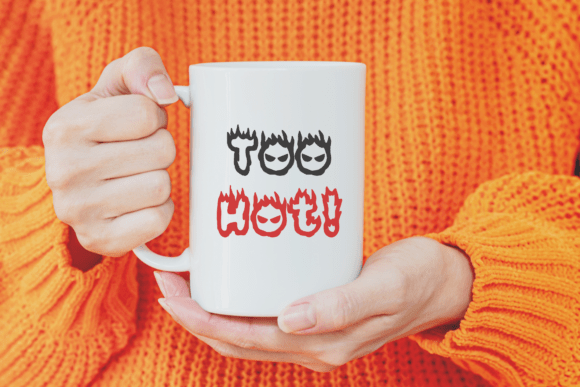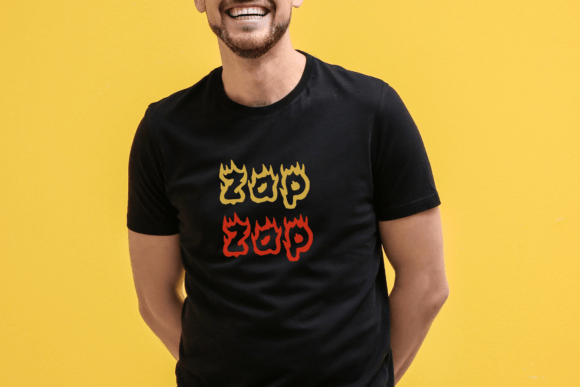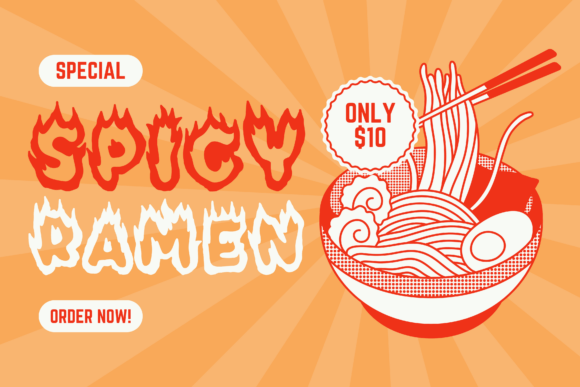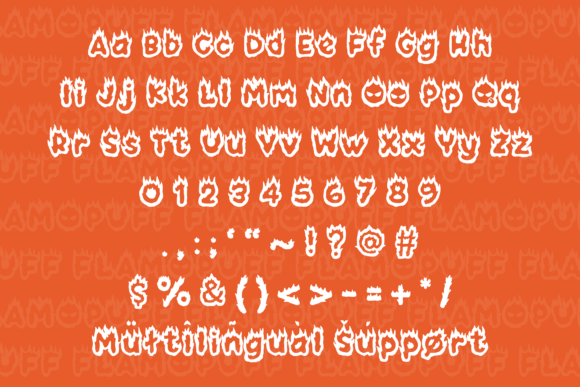
Introducing FlamoPuff Font: The Ultimate Choice for Bold and Vibrant Designs
Are you tired of using the same old fonts for your design projects? Do you want to add a spark of energy and creativity to your branding, headings, and marketing materials? Look no further than FlamoPuff Font, a unique and attention-grabbing typeface that’s sure to make your designs stand out from the crowd.
The Distinctive Characteristics of FlamoPuff Font
FlamoPuff Font is a one-of-a-kind font that’s characterized by its bold, fiery outlines and chubby, cute letterforms. The font’s distinctive design makes it perfect for dynamic design projects that require a high level of energy and creativity. Each letter is carefully crafted with bold, swirling lines that blaze around the edges, giving the font a lively and vibrant feel.
One of the key features that sets FlamoPuff Font apart from other fonts is its unique blend of playfulness and sophistication. The font’s bold lines and rounded shapes make it both fun and approachable, while its clean and crisp design ensures that it remains highly legible, even at smaller sizes.
The Perfect Font for Dynamic Design Projects
FlamoPuff Font is the perfect choice for designers and crafters who want to add a touch of excitement and energy to their projects. Whether you’re working on a branding campaign, designing eye-catching headings, or creating magazine covers and quotes, FlamoPuff Font is the ideal choice.
The font’s versatility makes it suitable for a wide range of design projects, including:
- Fiery branding and logos
- Eye-catching headings and titles
- Magazine covers and quotes
- Printed products, such as business cards and brochures
- Merchandise, such as t-shirts and mugs
Why Choose FlamoPuff Font?
So why should you choose FlamoPuff Font for your design projects? Here are just a few reasons:
- Unique and distinctive design: FlamoPuff Font is a one-of-a-kind font that’s sure to grab attention and make your designs stand out.
- Highly legible: Despite its bold and playful design, FlamoPuff Font remains highly legible, even at smaller sizes.
- Versatile: The font is suitable for a wide range of design projects, from branding and headings to merchandise and social media graphics.
Tips for Using FlamoPuff Font
Here are a few tips for using FlamoPuff Font in your design projects:
- Use it as a headline font: FlamoPuff Font is perfect for use as a headline font, where its bold and attention-grabbing design can really make an impact.
- Pair it with a simple font: For body text, pair FlamoPuff Font with a simple and easy-to-read font to create a striking contrast.
- Experiment with colors: FlamoPuff Font looks great in bold, bright colors, so don’t be afraid to experiment and find the perfect hue for your design.
FlamoPuff Font is a unique and attention-grabbing typeface that’s perfect for designers and crafters who want to add a touch of energy and creativity to their projects. With its bold, fiery outlines and chubby, cute letterforms, FlamoPuff Font is sure to make your designs stand out from the crowd. Whether you’re working on a branding campaign, designing eye-catching headings, or creating magazine covers and quotes, FlamoPuff Font is the ideal choice.